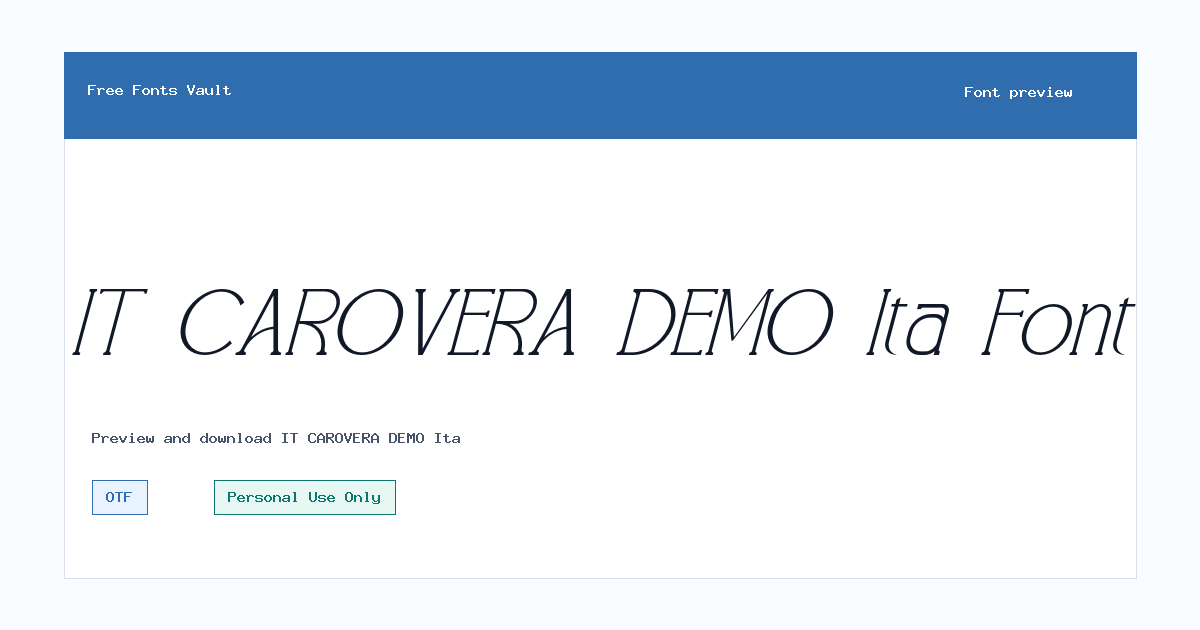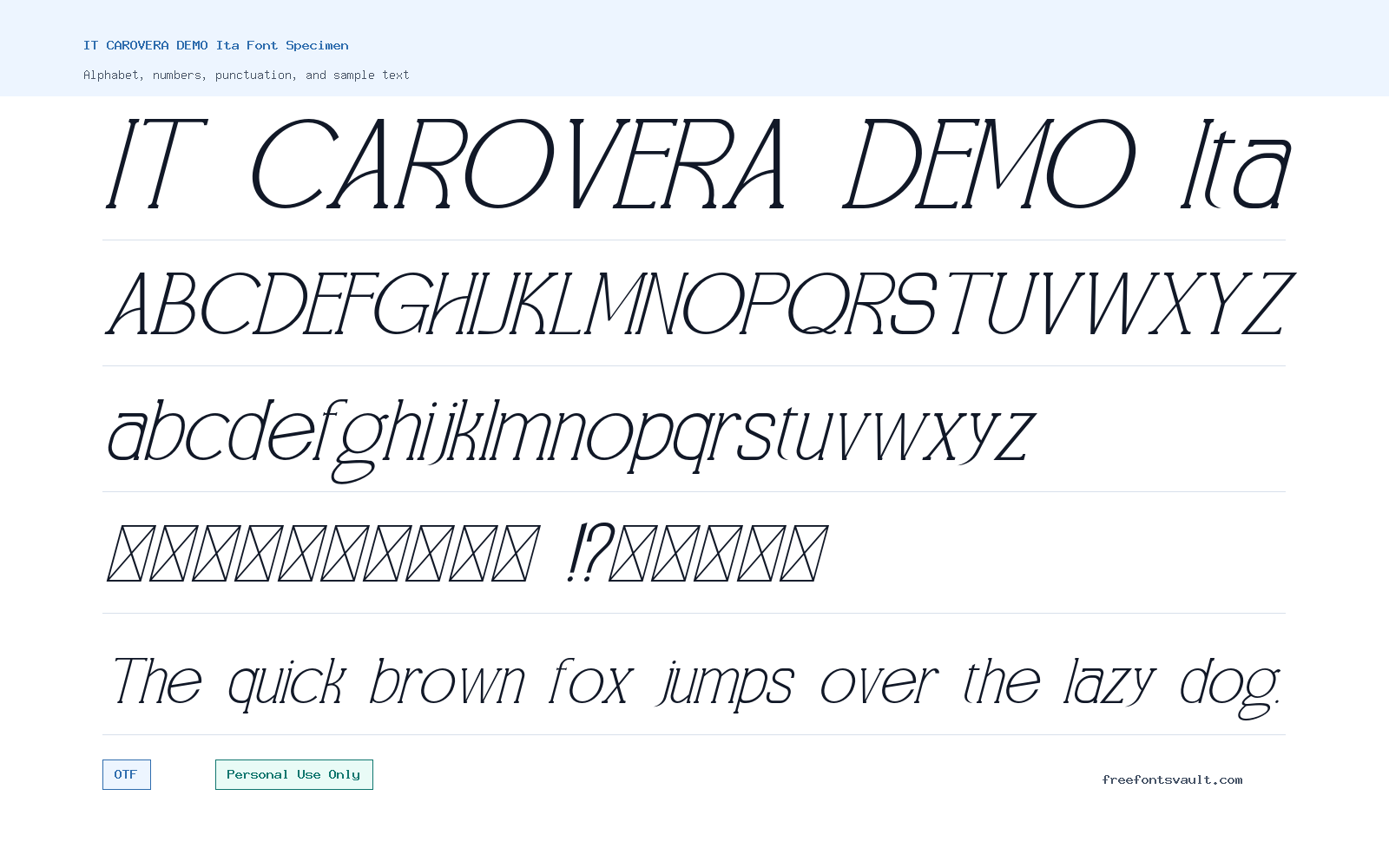
IT CAROVERA DEMO Ita
IT CAROVERA DEMO Ita Font
IT CAROVERA DEMO Ita is an italic OTF font from Indotype Foundry. It is best approached as a personal-use demo font for testing refined text, display headings, logo sketches, poster layouts, and web mockups before deciding whether the full licensed family fits a project.
About IT CAROVERA DEMO Ita
IT CAROVERA DEMO Ita is presented as an italic style, so it naturally leans toward expressive typography rather than plain body text. The name and license wording connect it with Carovera Serif, which suggests a serif-based design, but the safest way to judge it is through the live preview. Try it with short names, headline phrases, invitation-style wording, and brand concepts where an angled serif can add movement without taking over the whole layout. Because this is a demo font, it is especially useful for early design exploration: you can check spacing, letter rhythm, uppercase shapes, punctuation, and how the italic angle behaves in your own words.
For designers, IT CAROVERA DEMO Ita can work well in places where the text is meant to feel more considered than neutral. Test it for boutique logo drafts, editorial titles, packaging mockups, social graphics, poster headlines, and website hero text. Keep the copy short at first. Italic serif styles can look elegant in display sizes, but they may become harder to read in long paragraphs, small captions, dense menus, or low-contrast color combinations. If you plan to use it in a logo, try the name in all caps, title case, and lowercase, then check tricky letters side by side. If you plan to use it on the web, test browser rendering, line height, and fallback options before building a full layout around it.
• Regular weight style marked as 400, useful for display testing without a heavy bold appearance.
• A practical choice for testing serif italic typography in headings, logo drafts, poster concepts, and web mockups.
• Logo drafts and brand-name exploration where an italic serif look is being tested.
• Poster titles, quote graphics, and editorial-style display text.
• Invitation, stationery, and packaging mockups for personal projects.
• Website hero headings and landing page mockups during early visual planning.
• Pairing studies with simpler sans serif or neutral serif fonts.
Use the preview tool with real project text rather than placeholder words. Check how the italic angle affects spacing in names, headlines, and short phrases. For pairing, start with a clean sans serif for body copy so IT CAROVERA DEMO Ita can stay focused on the headline or accent role. If the design feels too decorative in small sizes, reserve it for larger text and choose a simpler companion font for navigation, captions, and paragraphs.
Is this an italic font?
Yes. The font style is listed as italic, and the file name also identifies it as Italic.
Who designed IT CAROVERA DEMO Ita?
The designer and foundry are listed as Indotype Foundry.
What is this font best used for?
It is best for testing short display text such as logo concepts, poster headlines, editorial titles, packaging mockups, invitations, and web hero sections.
What should I pair with IT CAROVERA DEMO Ita?
Start with a simple sans serif or a quiet text serif for body copy. Let IT CAROVERA DEMO Ita handle the headline, logo wordmark, or accent text so the layout stays readable.